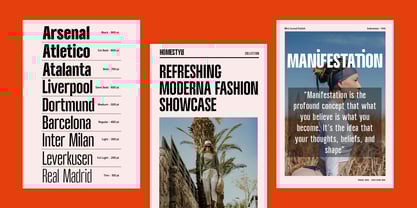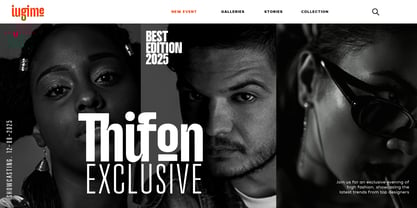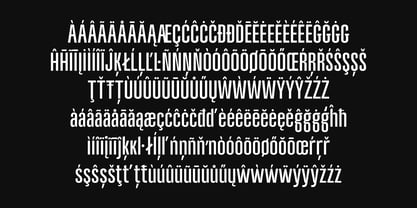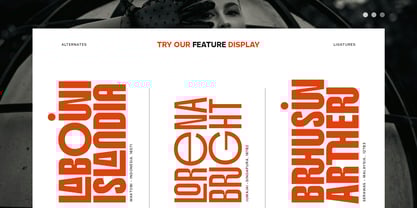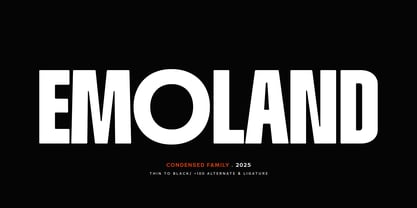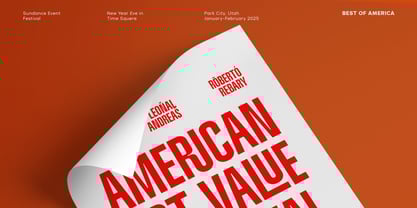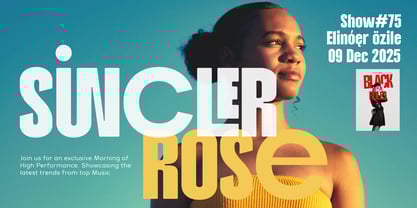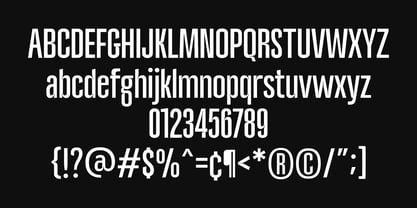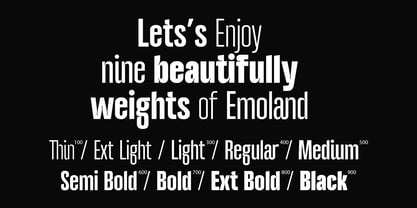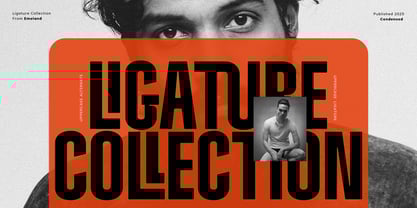
Emoland
by Isolatype
The Emoland Font Family was designed by Wildan Suprian Syah and published by Isolatype. Emoland contains 18 styles and family package options.
Emoland is a condensed sans serif family, with a tall, unique and bolder look. This font is designed specifically for professional and modern needs that want to highlight their designs through headlines, brand names or short paragraphs.
Emoland is made with precision, taking into account its shape and function. The tall and narrow strokes, with a slight roundness at the corners, make this font look more prominent and smooth. Emoland represents those of you who are looking for a font with a contemporary feel for great visual needs.
In the lowercase, the strokes are designed to be more unique with a touch of inktrap at the corners of the sharp space. In addition to giving an experimental impression, it will also help those of you who need this font for physical needs. Don't forget the opentype features provided. There are many alternates and ligatures that can make your exploration more lively.
So, for those who are confused looking for fonts for application, fashion, corporate and creative industry needs, please add Emoland to your toolkit.
About Isolatype
A solo font creator, born in Jambi. Studied various letterforms for several years, have a broad experience in visual art and graphic design. In 2021, began producing fonts professionally. Isolatype focuses on aesthetics, functionality, and being fit for branding purposes. Striving to create quality fonts, with a simple impression, easy to use, and showcasing strong character.